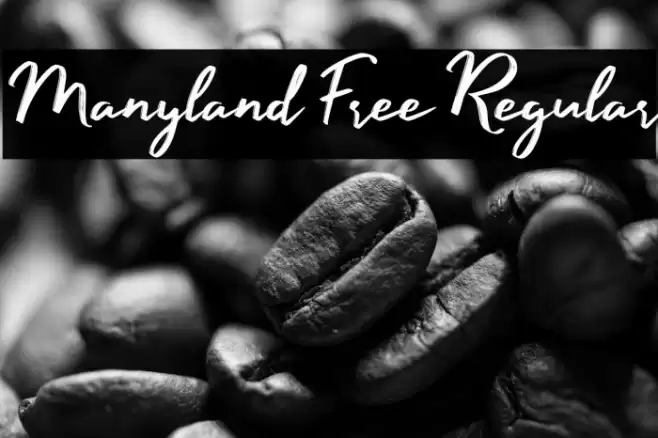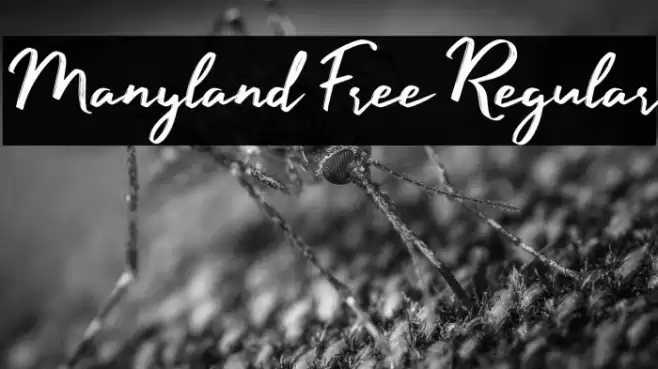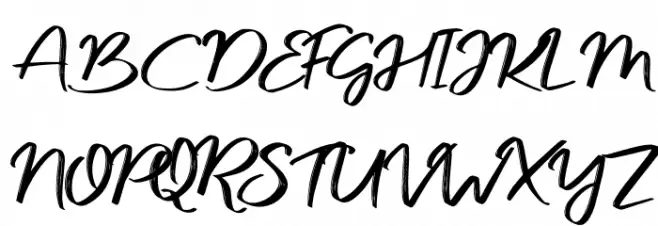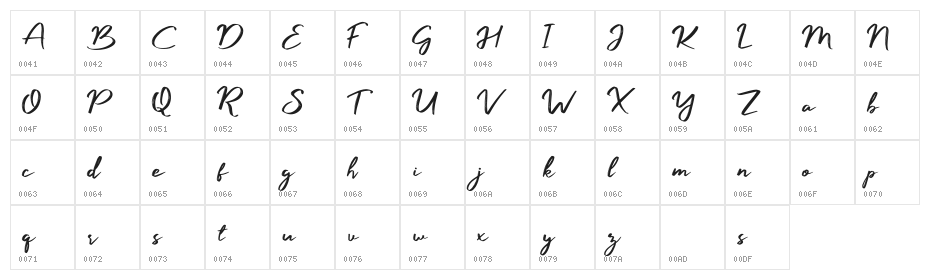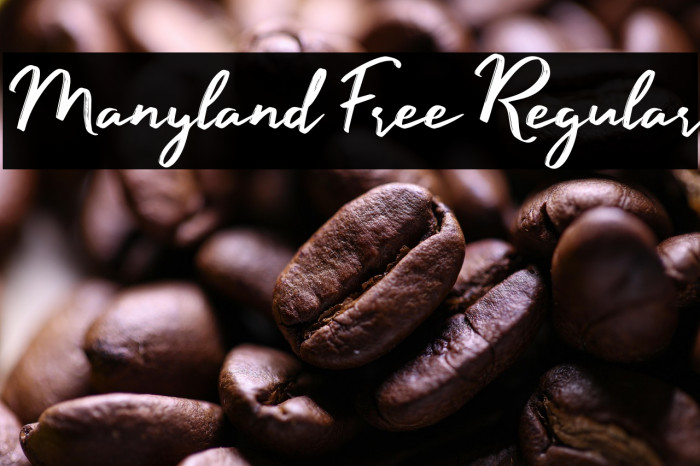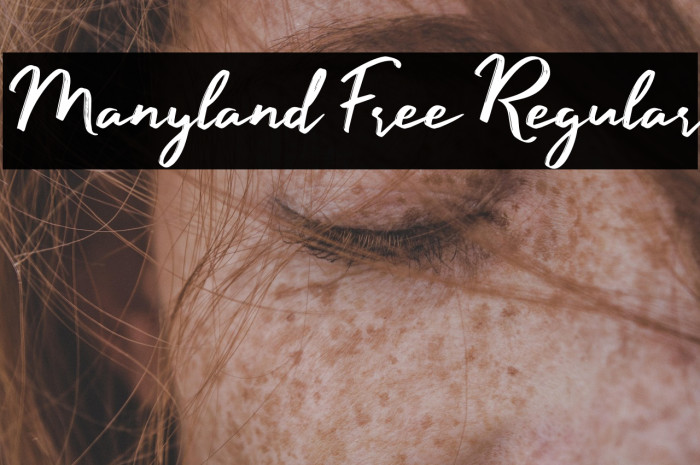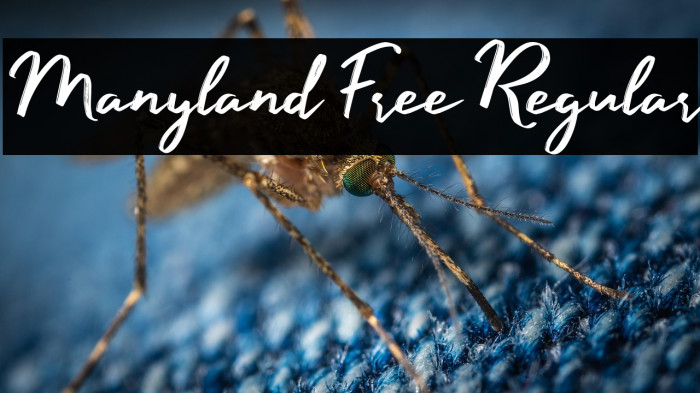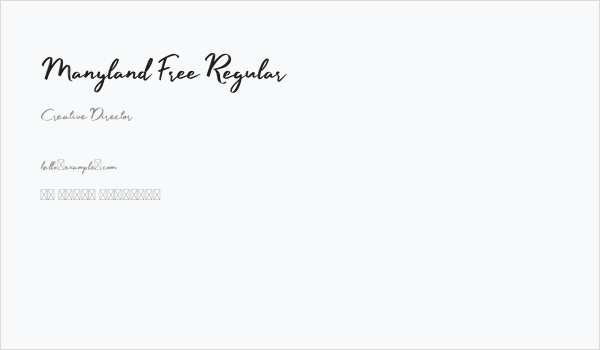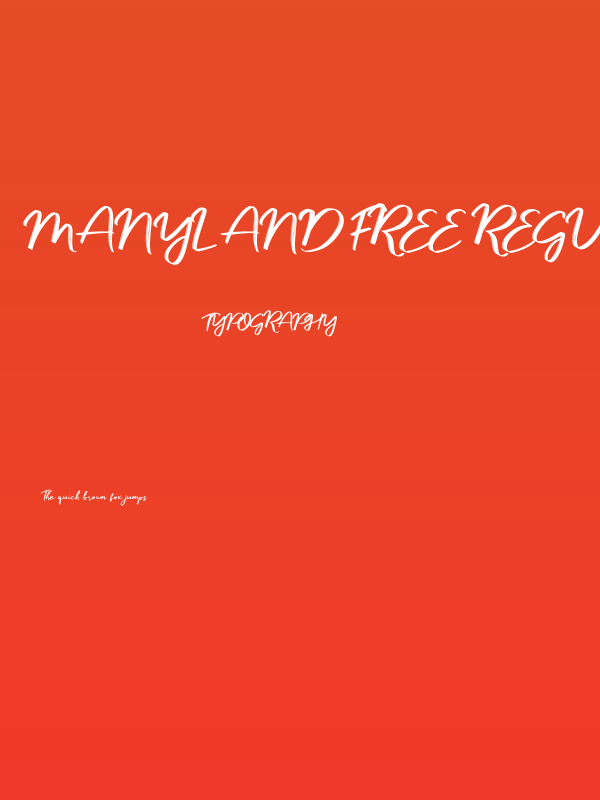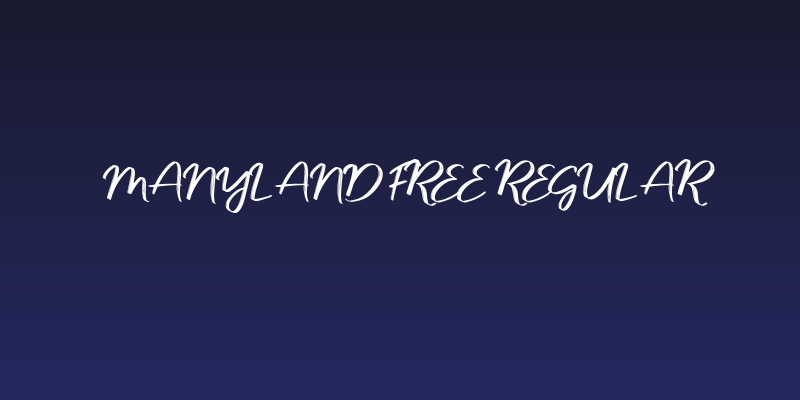
Manyland Free Regular Font
Manyland Free Regular Description
This font exhibits a dynamic and flowing script style, characterized by its elegant and cursive letterforms. The strokes are smooth and connected, giving it a handwritten appearance that is both stylish and sophisticated. The uppercase letters are bold and prominent, while the lowercase letters maintain a consistent flow with graceful curves. The overall look is expressive, making it suitable for creative and artistic projects. The font's design captures a sense of movement and fluidity, ideal for adding a personal touch to any design.
A dynamic and flowing script font with elegant cursive letterforms from Regular fonts.
- Proposed Projects: Ideal for wedding invitations, greeting cards, branding, and artistic projects requiring a personal touch.
- Use Case: Logos, Headlines, Invitations